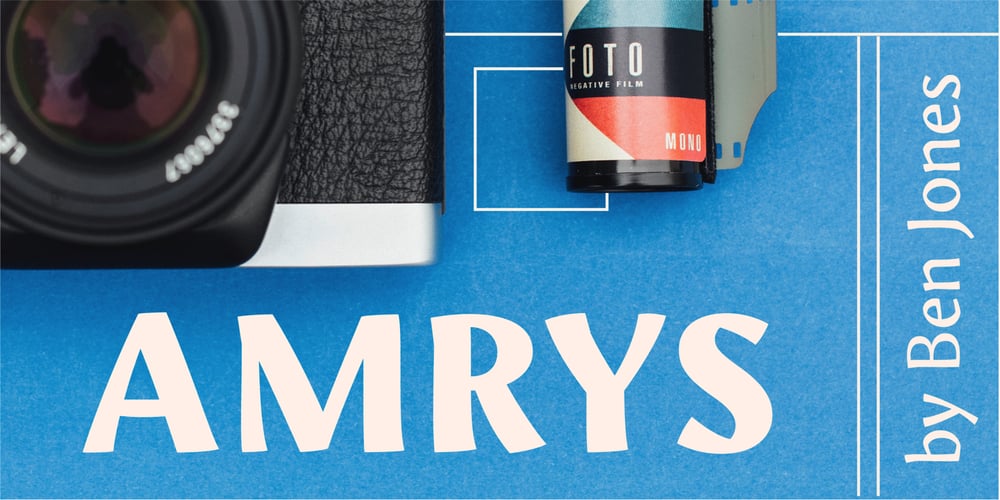
Amrys Font Family was designed by Ben Jones and published by Monotype. Amrys contains 16 styles and family package options. There’s an appealing quirkiness about Amrys, which offers a confidently unusual alternative to more conventional designs. Its charm lies in its tapering tips, flexing stems, and unexpected notches, which combine to suggest something of the chiseller’s tool at work. As a modulated serif, its letter shapes live between serif and sans serif, lending the design a sense of pleasing irregularity – something that’s really highlighted at larger sizes. However this is also a typeface that works for text, injecting rhythm and texture into reading. “It’s distinctive, idiosyncratic, and weird,” says its designer, Ben Jones. He started designing Amrys while studying an MA at Reading University, creating it in response to a brief for a magazine typeface. Amrys features an extensive and impressive character set. In addition to Latin, Amrys covers several scripts including Cyrillic, Greek, Arabic and Armenian. The family consists of 8 weights, from Light to Black, with matching italics.